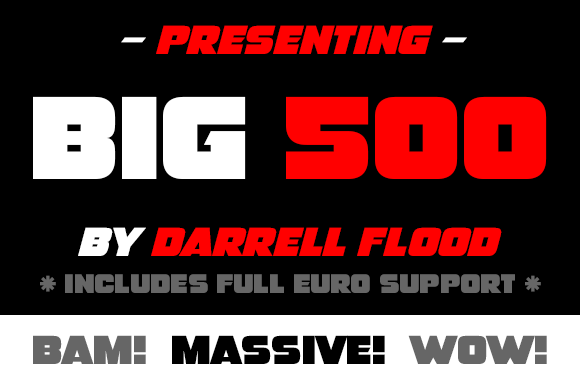
Introducing Big 500 Font: The Ultimate Ultra-Bold, High-Impact Typeface
In the world of typography, a good font can make all the difference in the success of a design project. Whether you’re working on a bold advertising campaign, a striking poster, or a sleek website, the right font can elevate your work from ordinary to extraordinary. That’s where Big 500 Font comes in – an ultra-bold, high-impact font that’s perfect for adding a touch of modern style and visual flair to your projects.
What is Big 500 Font?
Big 500 Font is a sleek and modern typeface that’s designed to make a statement. Its ultra-bold strokes and clean lines make it perfect for titles, events, and any project that requires a high level of visual impact. This font is not just a pretty face; it’s also highly versatile, making it suitable for a wide range of design applications, from print to digital media.
Key Features of Big 500 Font
- Ultra-Bold Strokes: Big 500 Font features extremely bold strokes that are sure to grab attention and make your text stand out.
- Modern Style: The font boasts a sleek and modern design that’s perfect for contemporary design projects.
- High-Impact: With its bold and eye-catching design, Big 500 Font is guaranteed to make an impact and leave a lasting impression.
- Versatile: This font can be used for a wide range of design applications, including titles, events, posters, and more.
Who is Big 500 Font for?
Big 500 Font is perfect for designers, crafters, and anyone looking to add a touch of modern style and visual flair to their projects. Whether you’re a professional designer or a DIY enthusiast, this font is sure to become a staple in your design toolkit. Here are some examples of who can benefit from using Big 500 Font:
- Graphic Designers: Big 500 Font is perfect for graphic designers looking to create bold and eye-catching designs for clients.
- Event Planners: This font is ideal for event planners who want to create striking invitations, posters, and other promotional materials.
- DIY Enthusiasts: Big 500 Font is also perfect for DIY enthusiasts who want to add a professional touch to their craft projects.
How to Use Big 500 Font
- Use it for Titles: Big 500 Font is perfect for titles, headings, and other large text elements.
- Experiment with Colors: Try using Big 500 Font with different colors to create a unique and eye-catching design.
- Combine it with Other Fonts: Big 500 Font can be paired with other fonts to create a striking contrast and add visual interest to your design.